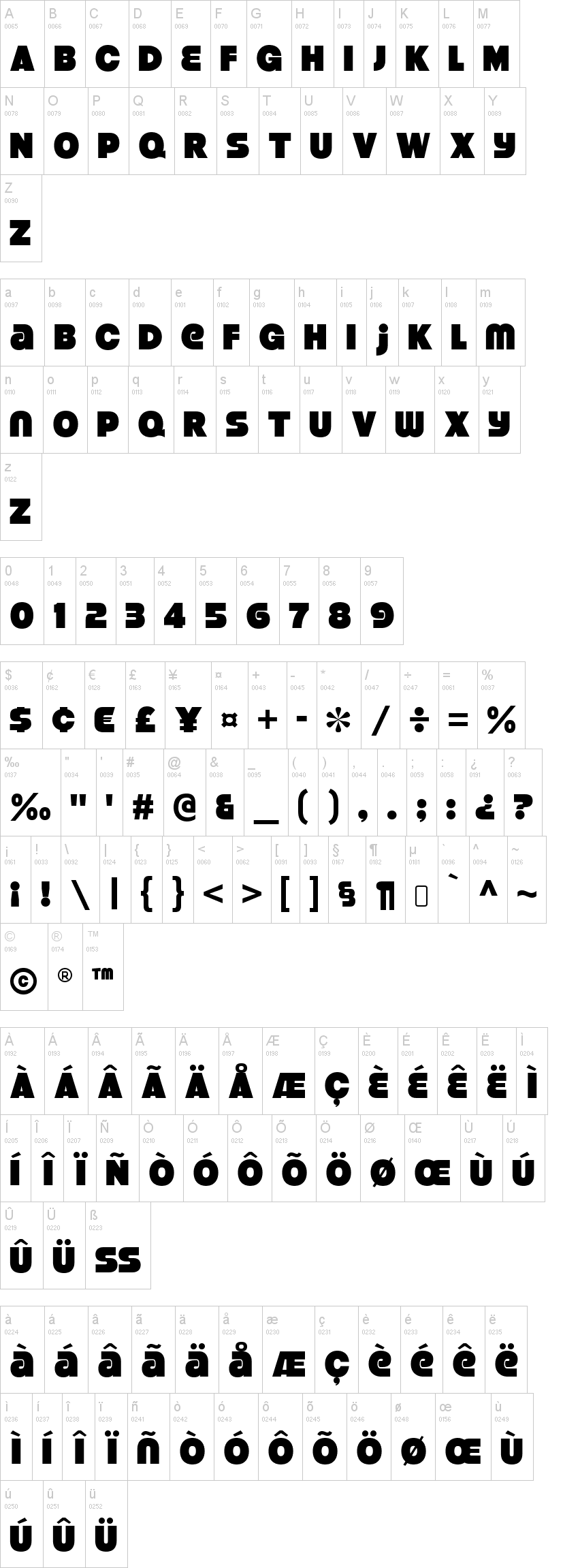
Шрифт Strenuous
Strenuous is a funky headliner inspired by the film, Black Eye. Scientists have recently discovered that its full of soul and leading experts consider Strenuous to be somewhat superbad. Don't forget to read the files inside the zip for details. Updated in 2012.